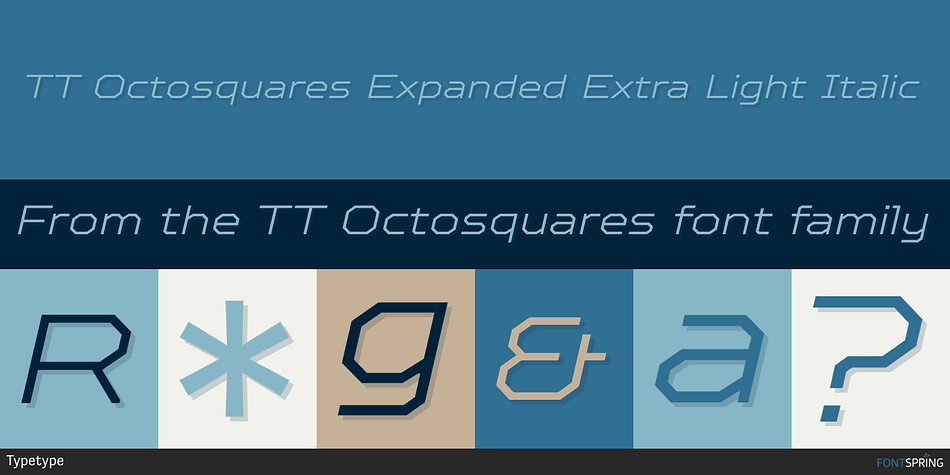
TT Octosquares Expanded Extra Light Italic
Designed by Antonina Zhulkova, Yulia Gonina and TypeType Team, TT Octosquares is a sans serif font family. This typeface has seventy-three styles and was published by Typetype.
TT Octosquares is a fresh, revised, expanded, and significantly improved version of our first commercial typeface TT Squares and its narrow version TT Squares Condensed. With all our love for the original font family, it felt there was a lack of functionality, character composition, features, and design freshness, which prompted us to the idea of a complete restart. Now TT Octosquares can be safely called a superfamily consisting of 4 widths (Compressed, Condensed, Standard, Expanded), 72 faces (18 in each width), and 1 incredible variable font in which variability works jointly on three axes.
In addition to working on the contours themselves and their design, we completely revised the composition of the typeface. First, we added two completely new widths: Compressed and Expanded. Secondly, we increased the number of weights in each of the subfamilies—while in the old versions there were 5 weights, now in each of the subfamilies there are 9 weights. At the stage of working with the contours of characters, we revised the roundings, changed the forms of shoulder and stem crossings, added noticeable shelves at the letters, removed the sharpness from the triangular characters and cut off all sharp endings.
From the very beginning of work on TT Octosquares, we planned to make a variable 3-axis version of it sewn into 1 font file. This means that by installing just one variable font file, you get access to three axial adjustment of the font: by thickness, width and inclination. Thanks to this flexibility in settings, you can always choose a custom combination of thickness, width or inclination that best suits your tasks.
Due to the increased language support and the appearance of a bunch of useful OpenType features, the number of glyphs in the typeface has increased from 480 to 825 in each style. Now you can use stylistic alternates, standard and discretionary ligatures, or use old-style figures, numbers in circles and even slashed zeros in your design.
Designers Antonina Zhulkova, Yulia Gonina, TypeType Team